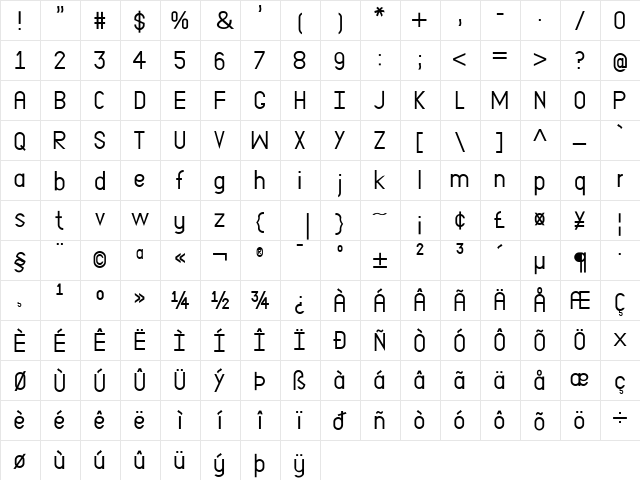
EP Dominate Regular
Design Context for EP Dominate Typeface
EP Dominate takes a measured approach to typography — its balanced proportions and neutral character make it a reliable workhorse for both digital and print work.
Pro Tip: Pair EP Dominate with a font of contrasting weight or personality to build a more expressive typographic hierarchy.